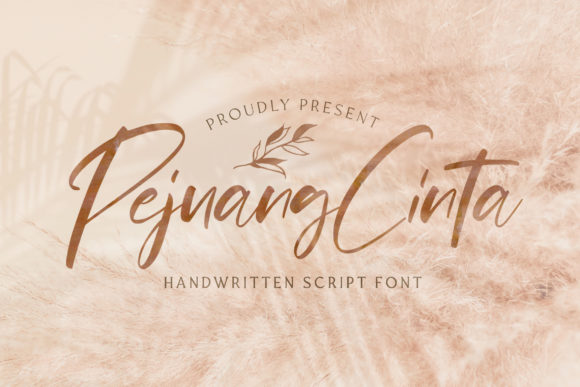
Are you tired of boring, ordinary fonts that fail to capture the essence of your personal style? Look no further than Pejuang Cinta, the captivating handwritten font that exudes effortless elegance and sophistication.
With its graceful curves and fluid strokes, Pejuang Cinta mimics the beauty of authentic penmanship, adding a touch of warmth and individuality to your digital creations. The font's versatility knows no bounds, seamlessly adapting to various contexts, from heartfelt love letters to formal business documents.
Whether you're a creative professional seeking an eye-catching font for your latest project or an individual looking to add a personal touch to your electronic signature, Pejuang Cinta is the perfect choice. Its captivating presence will leave an unforgettable impression on your audience, leaving them captivated by your impeccable taste and attention to detail.
Pejuang Cinta's exquisite design grants it a timeless appeal, ensuring that your creations will remain stylish and sophisticated for years to come. Unlike fleeting trends, this font stands the test of time, providing enduring value to your digital repertoire.
So, embrace the allure of Pejuang Cinta and watch as your words dance with newfound grace and beauty. Let this exceptional font elevate your projects to new heights of creativity and distinction.